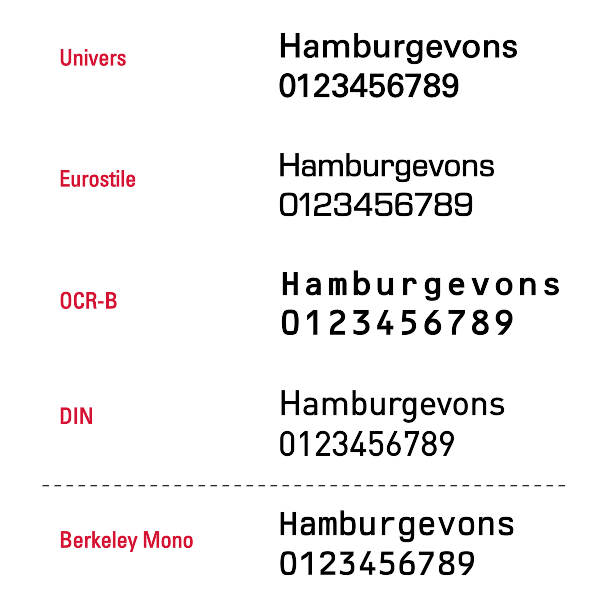
Berkeley Mono Typeface
A retro-inspired mono typeface for professionals.
Berkeley Mono is a love letter to the golden era of computing. The era that gave rise to a generation of people who celebrated automation and reveled in the joy of computing, when transistors replaced cogs, and machine-readable typefaces were developed, for when humans and machines truly interfaced on an unprecedented scale.